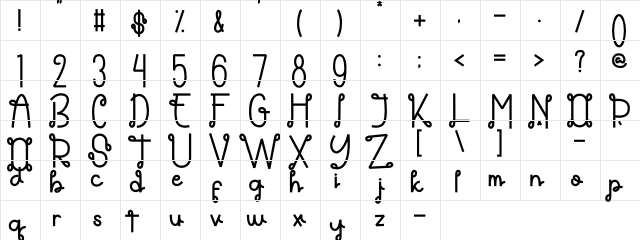
Themarie Regular
Design Context for Themarie Typeface
Themarie is a composed and adaptable typeface that performs quietly and consistently across a wide range of design contexts.
Pro Tip: Use Themarie in both headline and body roles to test its range before committing to a single application.